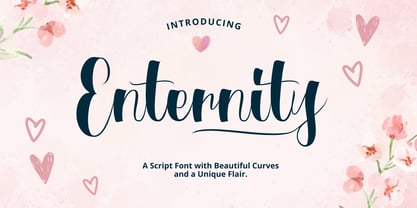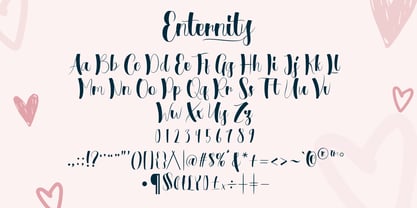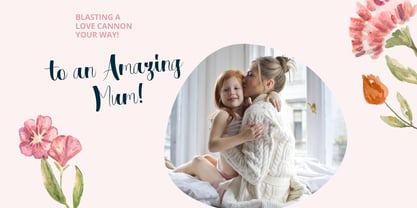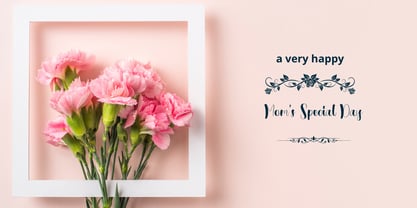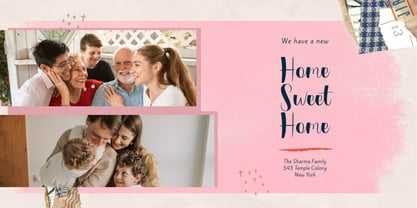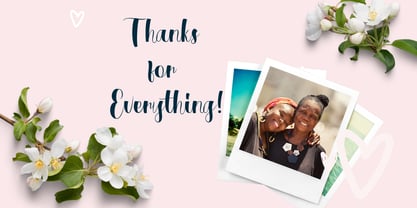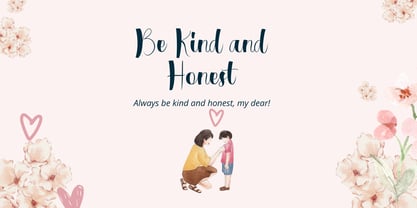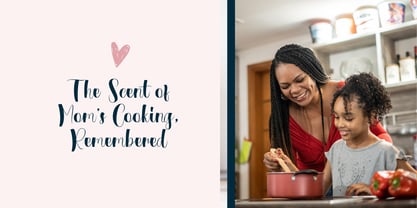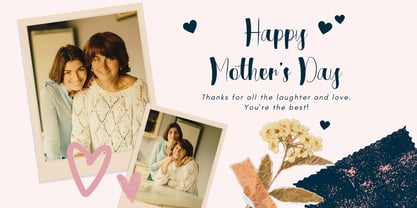
Enternity
by Gatype
The Enternity Font Family was designed by khaidir and published by Gatype. Enternity contains 1 styles. More about this family
Enternity – Elegant Handwritten Script
Enternity is a graceful handwritten script that brings a warm, personal touch to any design. Inspired by natural pen strokes, it’s perfect for wedding invitations, feminine branding, quotes, and product packaging.
With flowing curves and a soft charm, Enternity adds timeless elegance to your creative projects — both digital and print.
💫 Let every word feel personal and beautifully handwritten.
Designers: khaidir
Foundry: Gatype